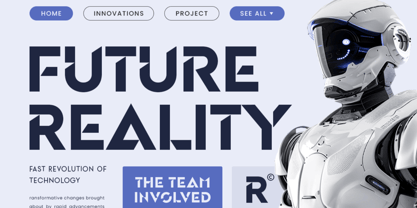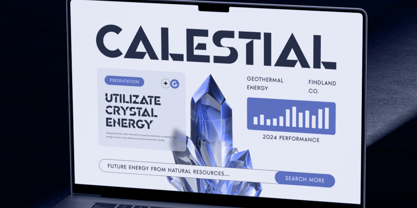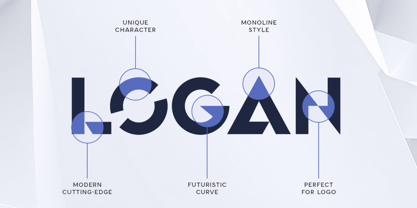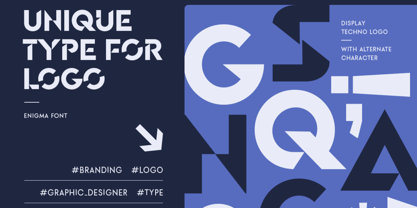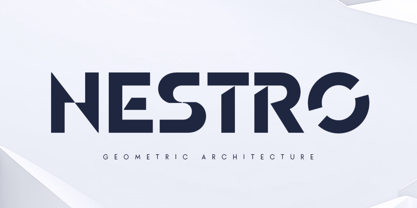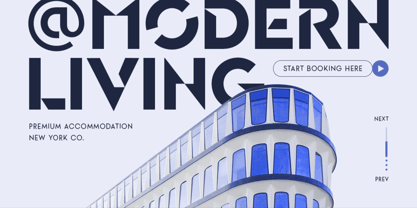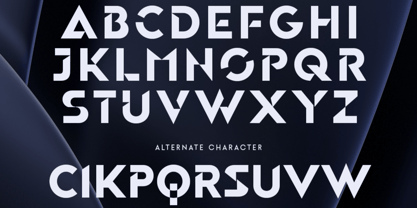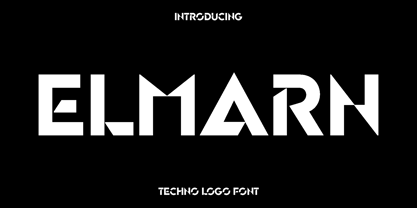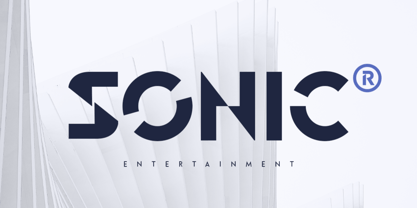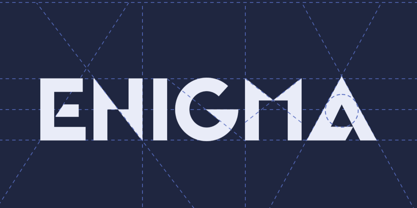
Elmarn
by Only Fonts
The Elmarn Font Family was designed by Olivia Love and published by Only Fonts. Elmarn contains 1 styles. More about this family
Elmarn – Futuristic Techno Logo Font Elmarn is a cutting-edge techno logo font designed to embody the essence of innovation, technology, and contemporary digital design. Drawing inspiration from sleek geometric forms and modern sci-fi aesthetics, Elmarn offers a striking visual identity that is clean, powerful, and forward-thinking. Each character is meticulously crafted with sharp precision and minimalist balance, resulting in a typeface that stands out prominently in modern branding initiatives. This font is ideal for technology companies, gaming brands, digital interfaces, app designs, startup identities, esports graphics, futuristic posters, and modern advertising campaigns. Elmarn creates a sleek and professional atmosphere that enhances logos and headlines with a strong sense of innovation and creativity. Its bold simplicity ensures that designs remain visually impactful while providing excellent readability and structure. Elmarn is tailored for creators seeking typography that feels modern, experimental, and memorable. The alternate characters offer flexibility for crafting unique logo compositions and futuristic layouts, enabling designers to create distinctive branding effortlessly. Whether utilized in digital products or print materials, Elmarn adapts seamlessly across various creative applications. With its blend of minimalism and advanced futuristic style, Elmarn elevates typography into a modern design statement. It is an essential typeface for designers aiming to produce bold visuals that convey technology, progress, and originality. Elmarn Techno Logo Font Features: • Alternate characters ready • Punctuation, numbers, and symbols • Uppercase and lowercase • OpenType features • Multilingual support for 50+ languages • Futuristic techno logo style • Perfect for tech branding, gaming, apps, and digital projects